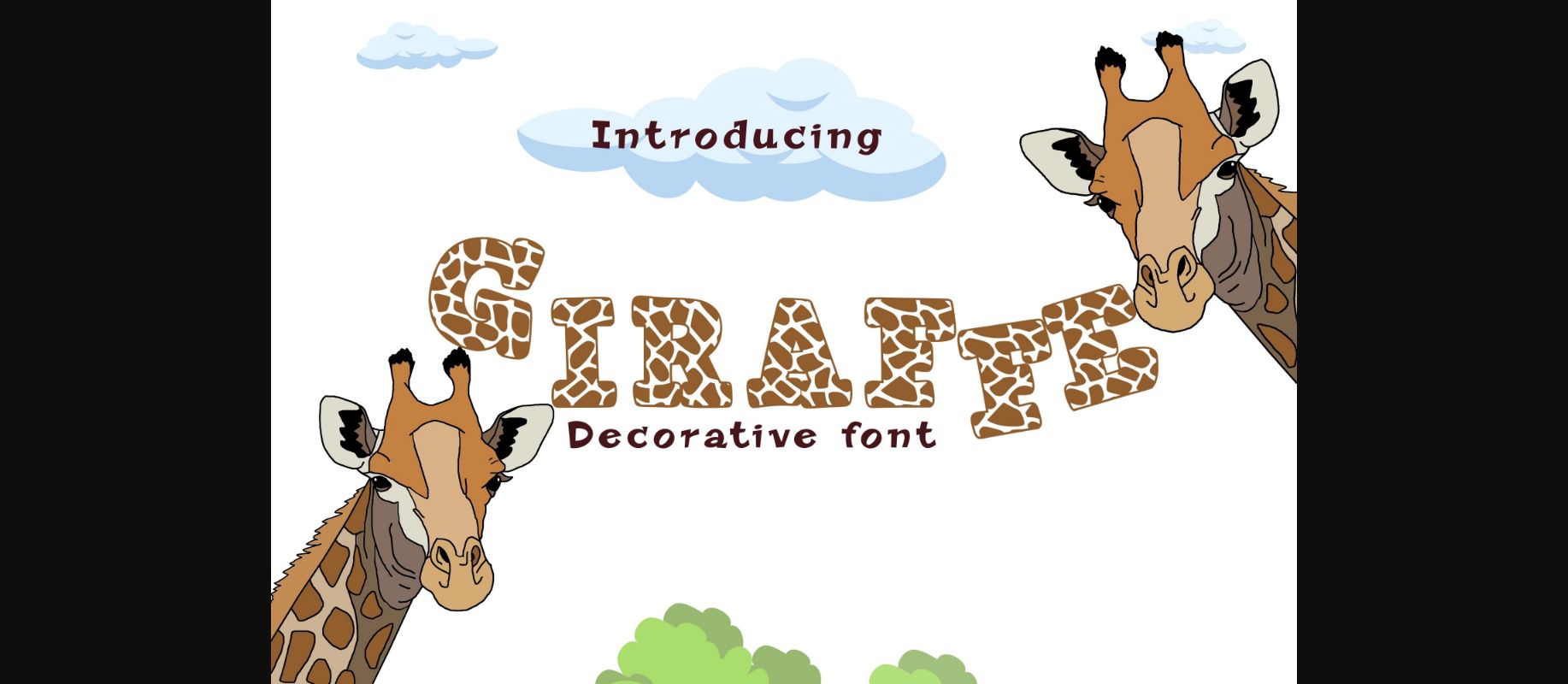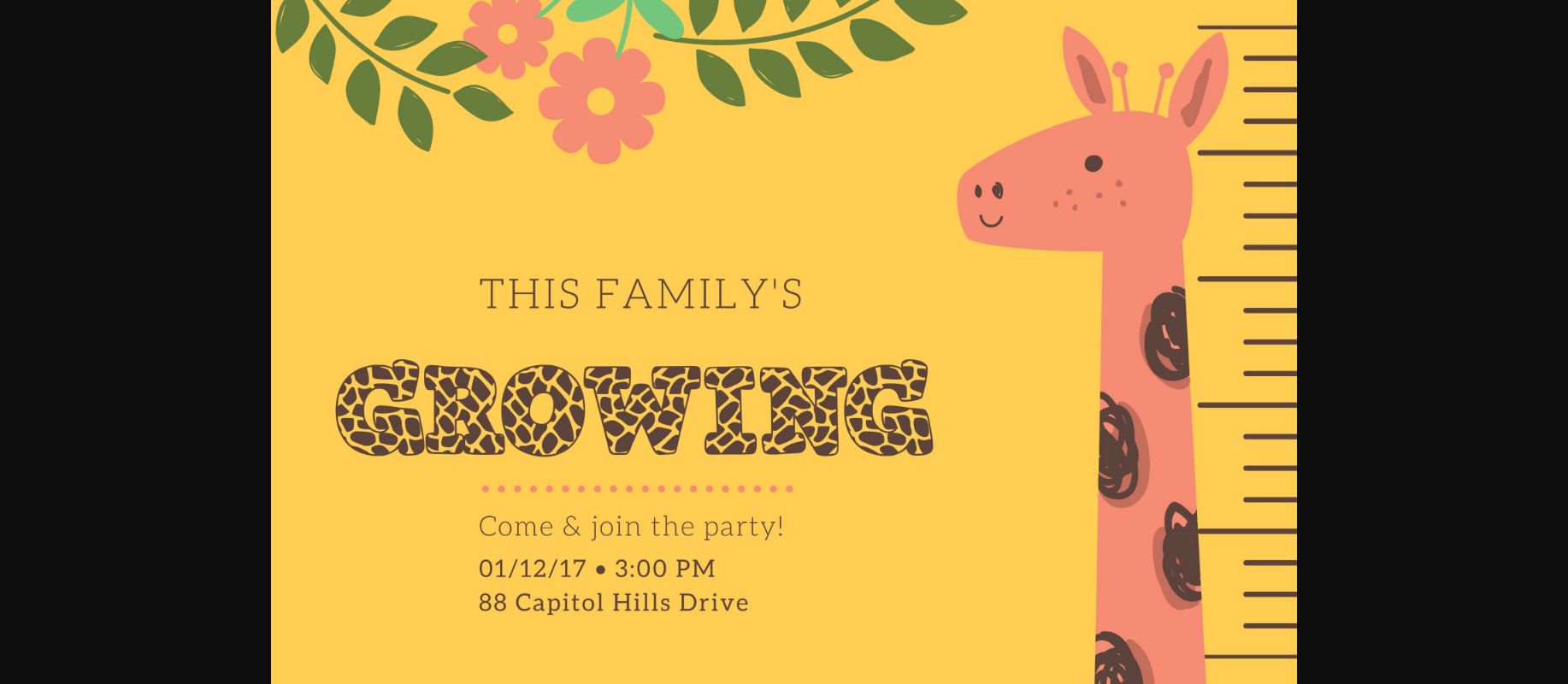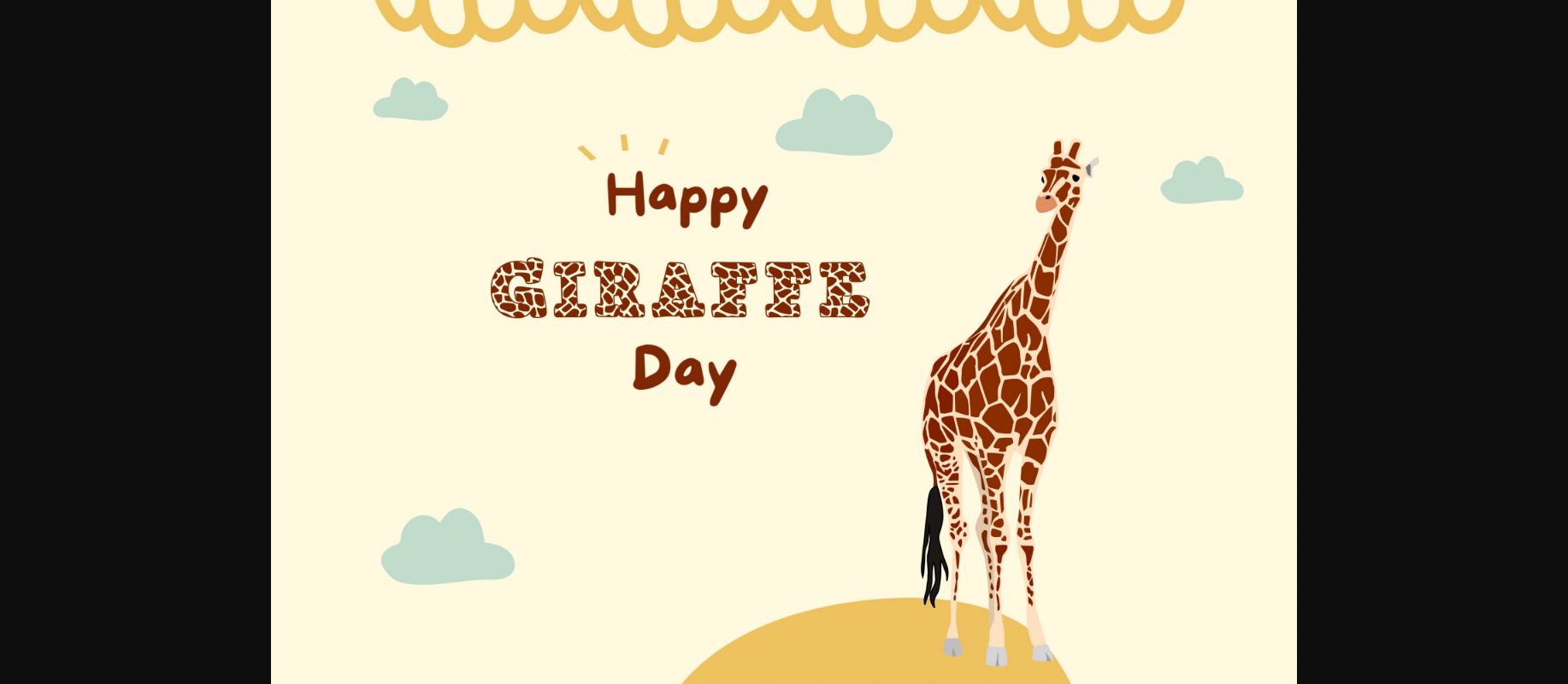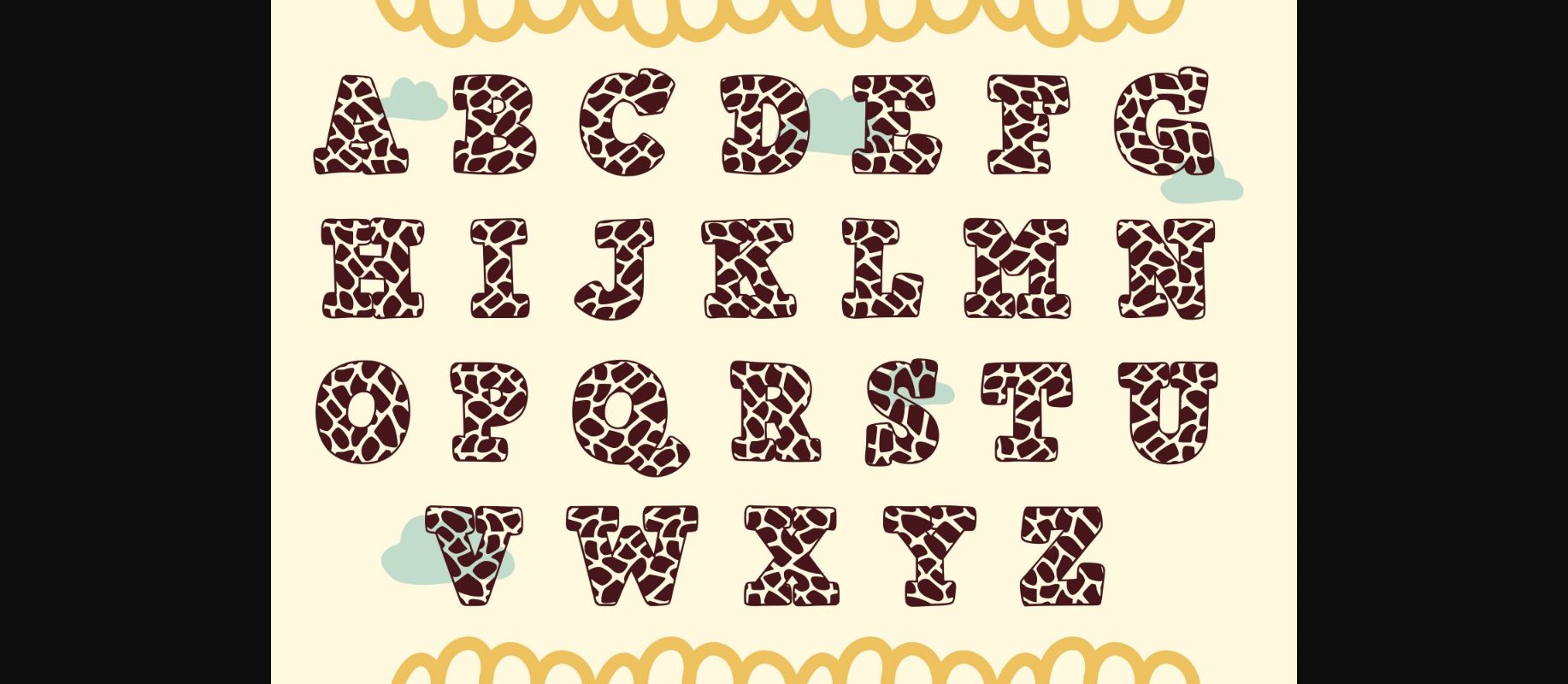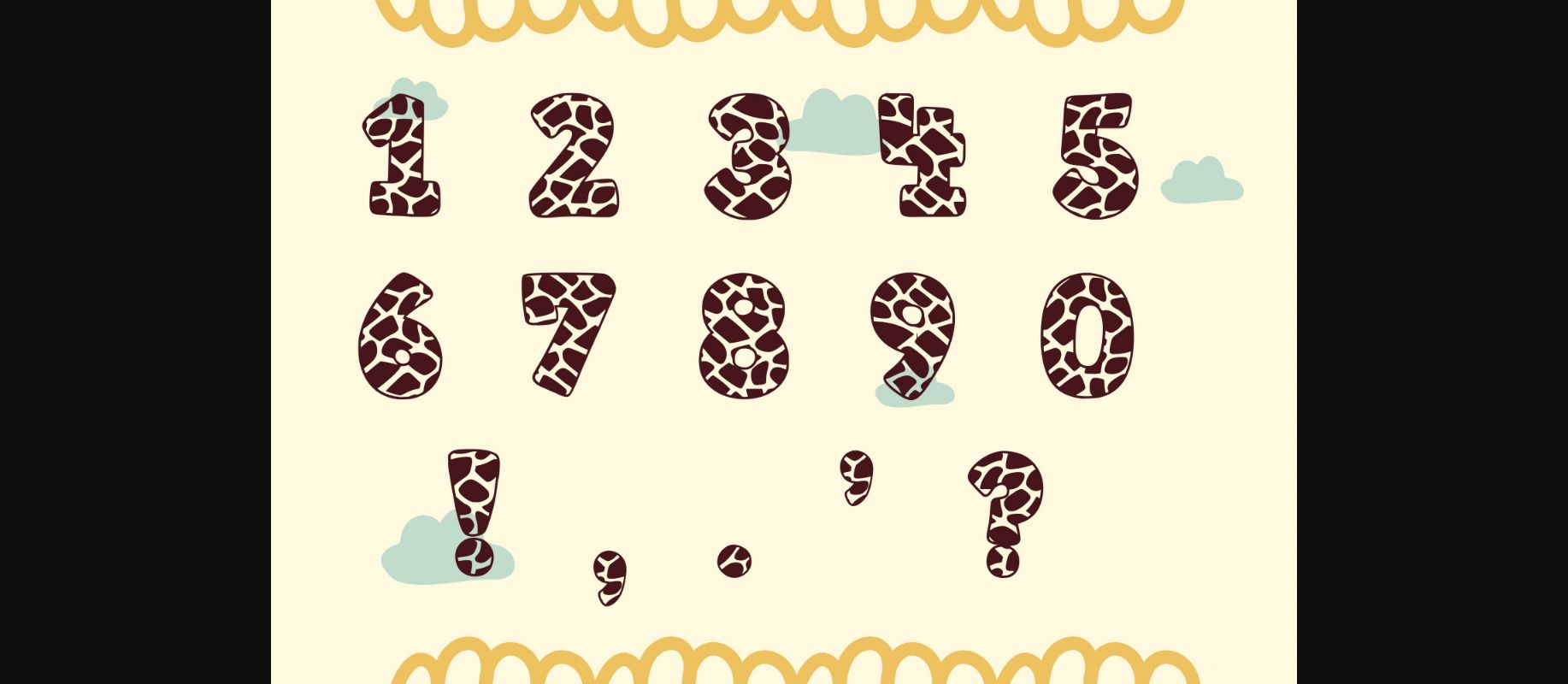
About Giraffe Font
Giraffe font is a decorative font with a playful giraffe print effect. This cute font is perfect for kids. They can create outstanding artwork, posters, or even stickers. Make your artwork looks outstanding with Giraffe font!